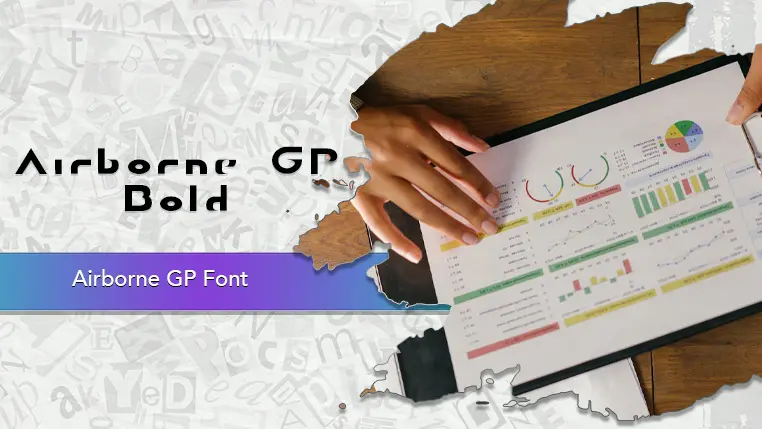
The Airborne GP font family may be ideal for you if you enjoy working on an artistic design project. The lively, expressive look of this typeface, which was created by Gustavo Paz L, makes it ideal for Titles or UI elements for video games with sci-fi themes, Movie posters or trailers for futuristic films, Presentations or infographics related to technology, data, or engineering, Branding for industrial companies or machinery, Automotive graphics or displays, Its simple design and strong presence make it good for headlines, titles, and short impactful phrases. and other light-hearted visual projects.
Bold are the one primary font styles of the Airborne GP font family. You may build dynamic, visually appealing text layouts with the distinct flair that each style offers. With crisp, readable lines and a relaxed tone.